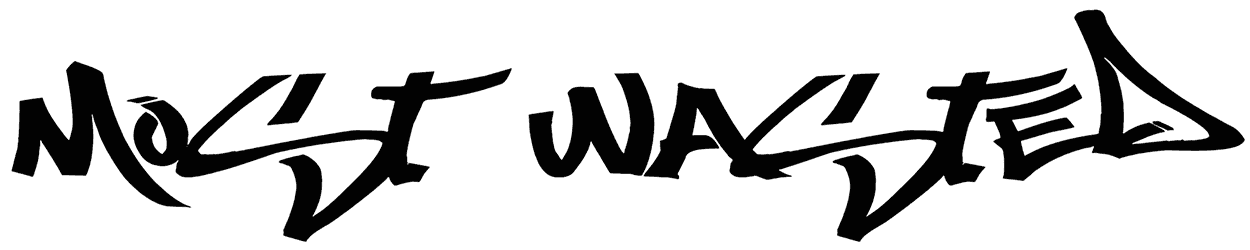
Most Wasted Font
Most Wasted is a cursive-style graffiti font with a street wall art design! If you’re a fan of video games, you will be excited to know this font is inspired by the NFS game. It provides informal characters that are distorted, they give your typography an artistic gangsta feel which looks cool.
Most Wasted doesn’t include lower case alphabets in its set of letterforms. A few places to consider utilizing this font would be games, movies, posters, flyers, greeting cards, and clothing.